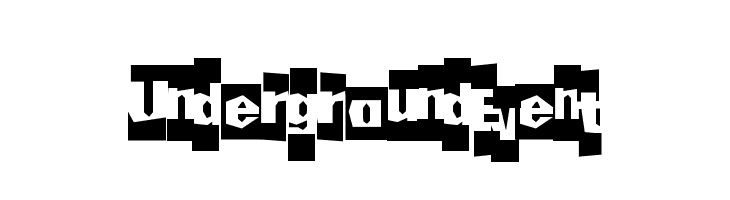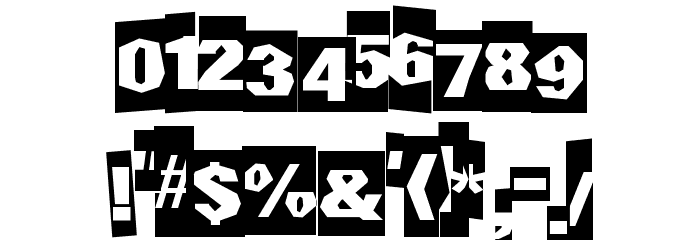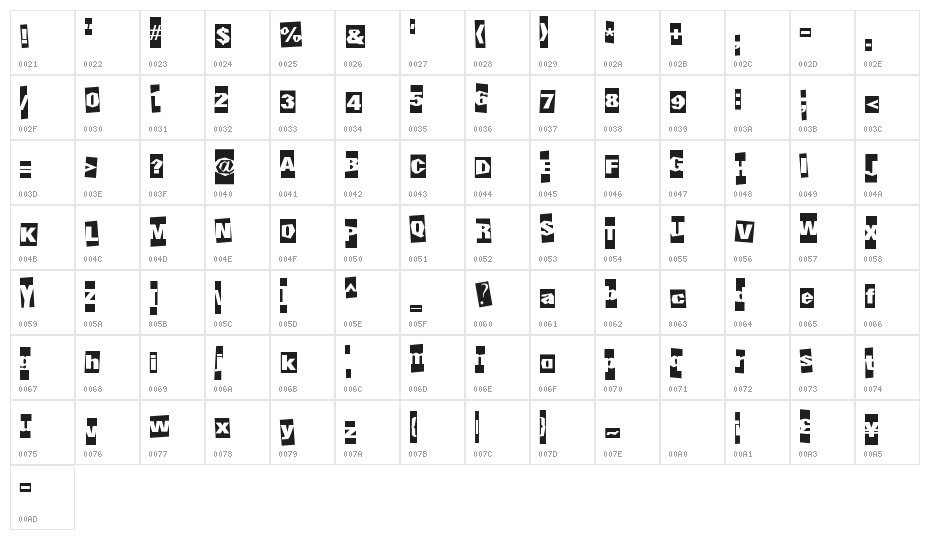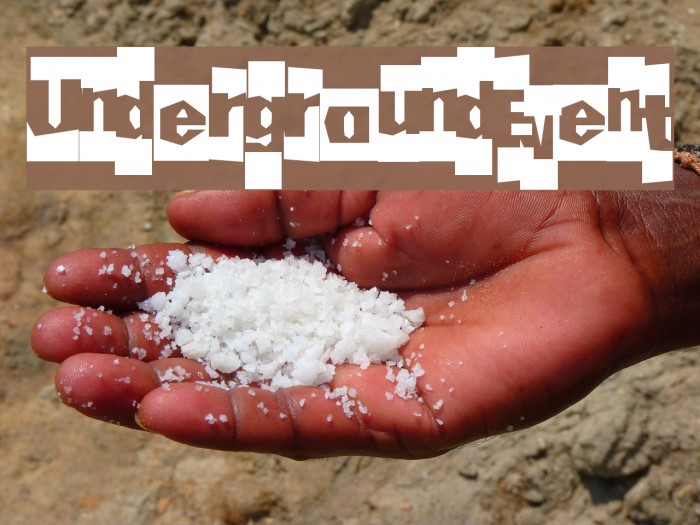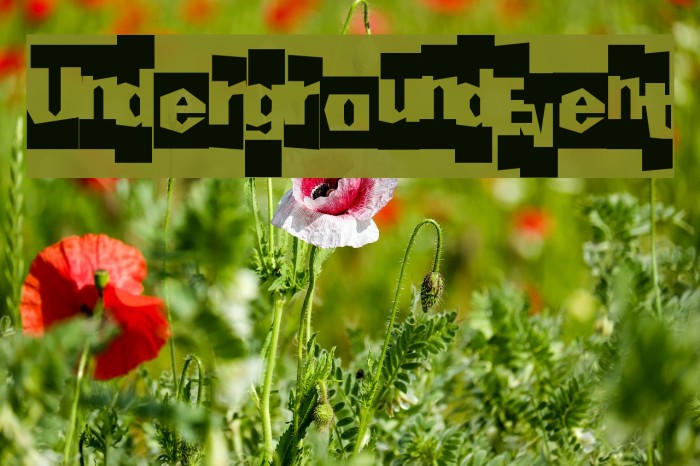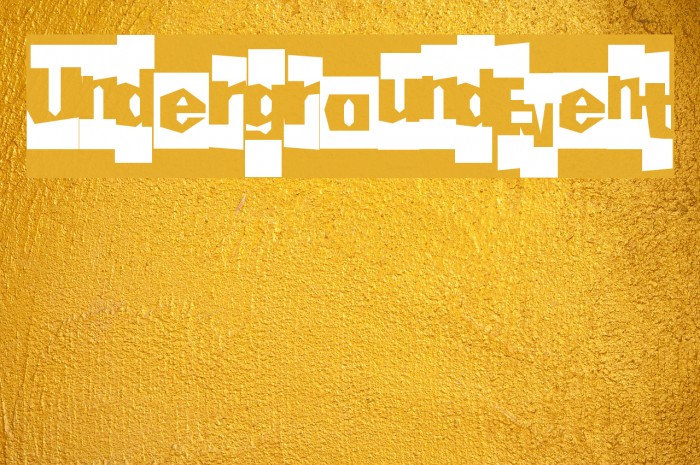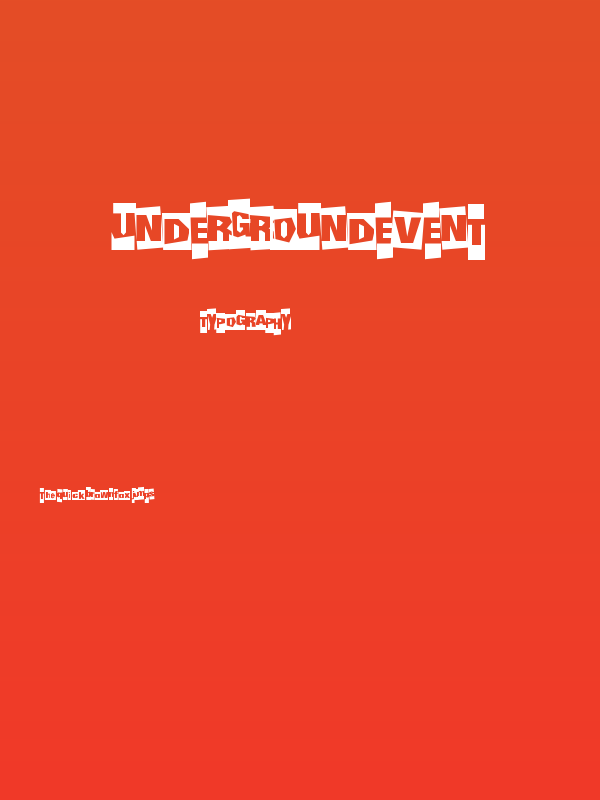
UndergroundEvent Font
UndergroundEvent Description
This font features a bold, edgy design with a cut-out, collage-like appearance. Each character appears as if it has been manually cut from paper and pasted onto a contrasting background, giving it a unique, rebellious feel. The uppercase letters are particularly striking, with sharp angles and irregular shapes that create a sense of movement and energy. The lowercase letters maintain this dynamic style, though they are slightly more compact. Numbers and special characters follow the same aesthetic, ensuring a cohesive look across all text. This font is perfect for projects that require a bold statement or an underground, gritty vibe.
| Overall Style | Modern, Edgy |
| Proposed Projects | Ideal for music album covers, event posters, street art designs, and edgy branding projects. |